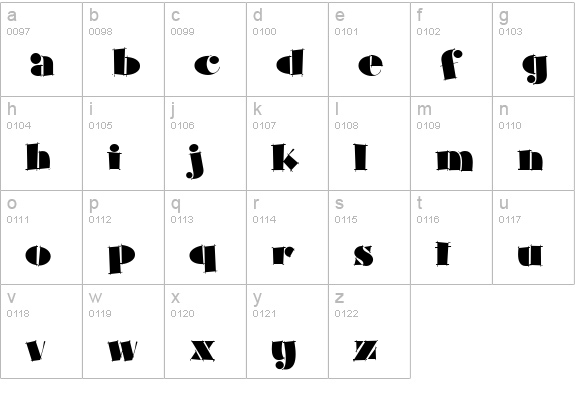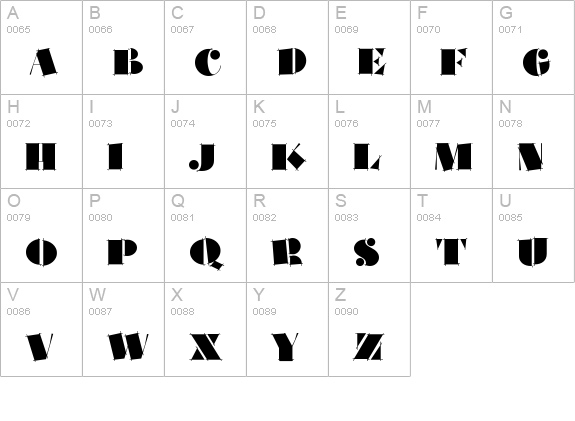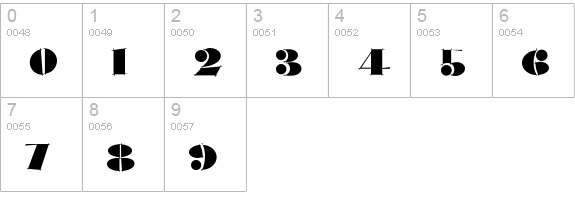
Slapdash Deco NF font is a stunning display font that effortlessly captures the essence of the Art Deco era. With its bold and geometric letterforms, this typeface exudes a sense of elegance and sophistication that will transport you back to the Roaring Twenties. Designed with meticulous attention to detail, Slapdash Deco NF font features a unique blend of sharp angles and graceful curves, creating a harmonious balance that is both eye-catching and timeless. The distinct characteristics of this font make it perfect for a wide range of design projects, from vintage-inspired logos and branding to headline typography and poster designs. What sets Slapdash Deco NF font apart is not only its impeccable craftsmanship but also its accessibility. This font is freely available to download at FontsMarket.com, allowing designers and enthusiasts alike to incorporate its charm into their creative endeavors without any limitations. With just a few clicks, you can add a touch of Art Deco flair to your designs and bring them to life. Whether you're working on a retro-themed project or simply looking to add a hint of nostalgia to your designs, Slapdash Deco NF font is the perfect choice. Its bold presence and timeless appeal make it a valuable addition to any font collection. Download it for free at FontsMarket.com and let your creativity soar to new heights with this exceptional typeface.